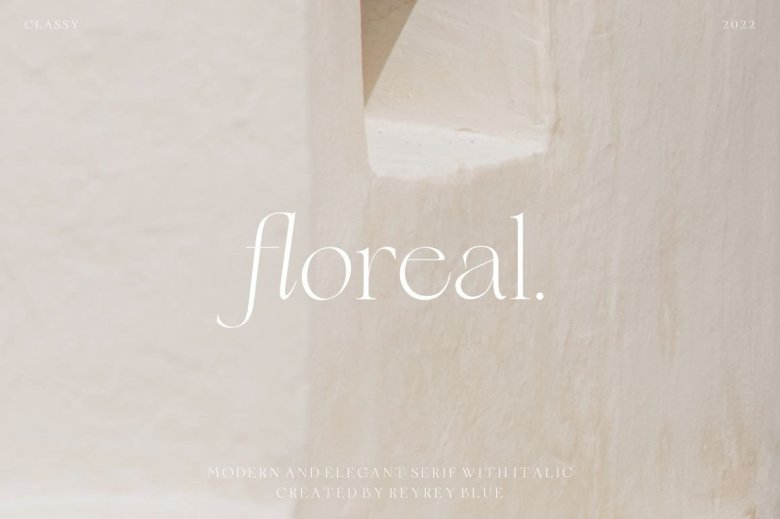
Floreal Font
Floreal is a fashionable, elegant and classy serif font. I mean we now have two styles, regular and true Italic. This font including alternate glyph. you can access the alternate glyph via Font book (Mac user) or Windows Character Map (Windows user).
Floreal can be a corporate identity, website, publications, headings and titles in books or essay collections magazines on various topics. It looks great on business cards, logos and product labels as well as packages; it’s simply perfect for advertising materials of any kind!
Floreal Serif Font